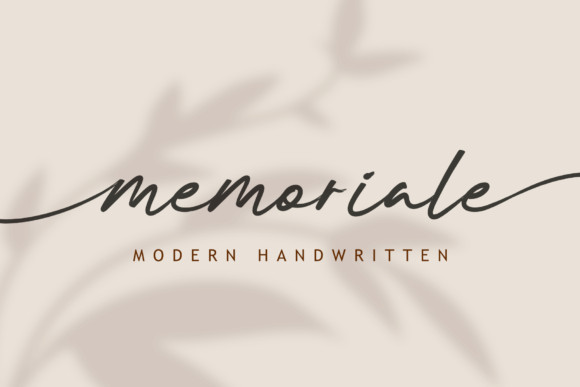
Memoriale Font
Memoriale is a delicate and elegant handwritten font. Its distinct and refined letters make this font a masterpiece. This font is PUA encoded which means you can access all of the glyphs and swashes with ease!